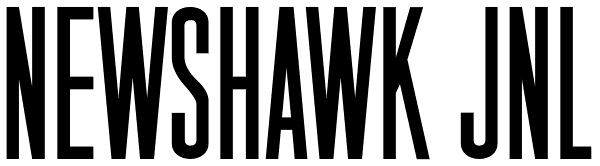
Newshawk JNL
Jeff Levine's Newshawk JNL emulates the tall, condensed headline fonts often used years ago when an urgent story broke and a newspaper rushed an "Extra" edition to the streets.
Newshawk JNL Font